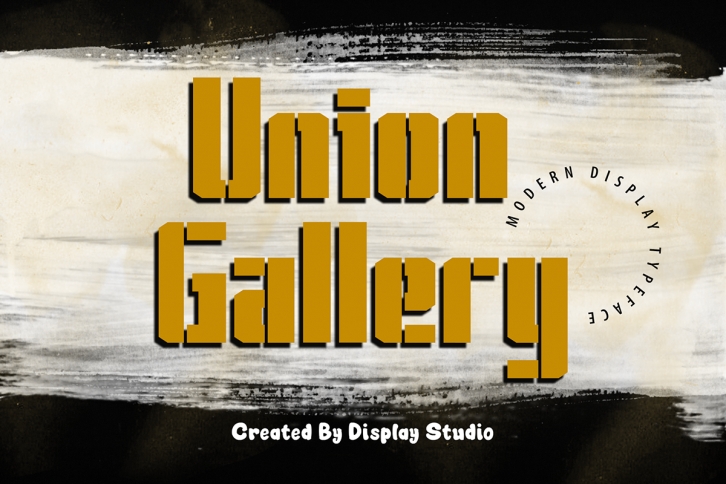
Union Gallery is a modern and futuristic display font, perfect for creating outstanding designs! The characters look chubby and very easy to read, features that make this font a great choice for headlines, covers, and big text.